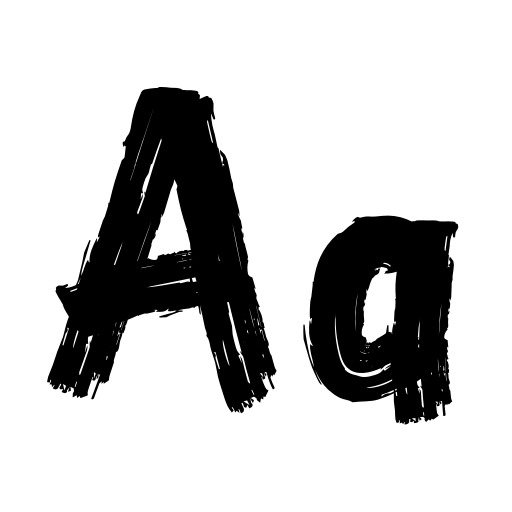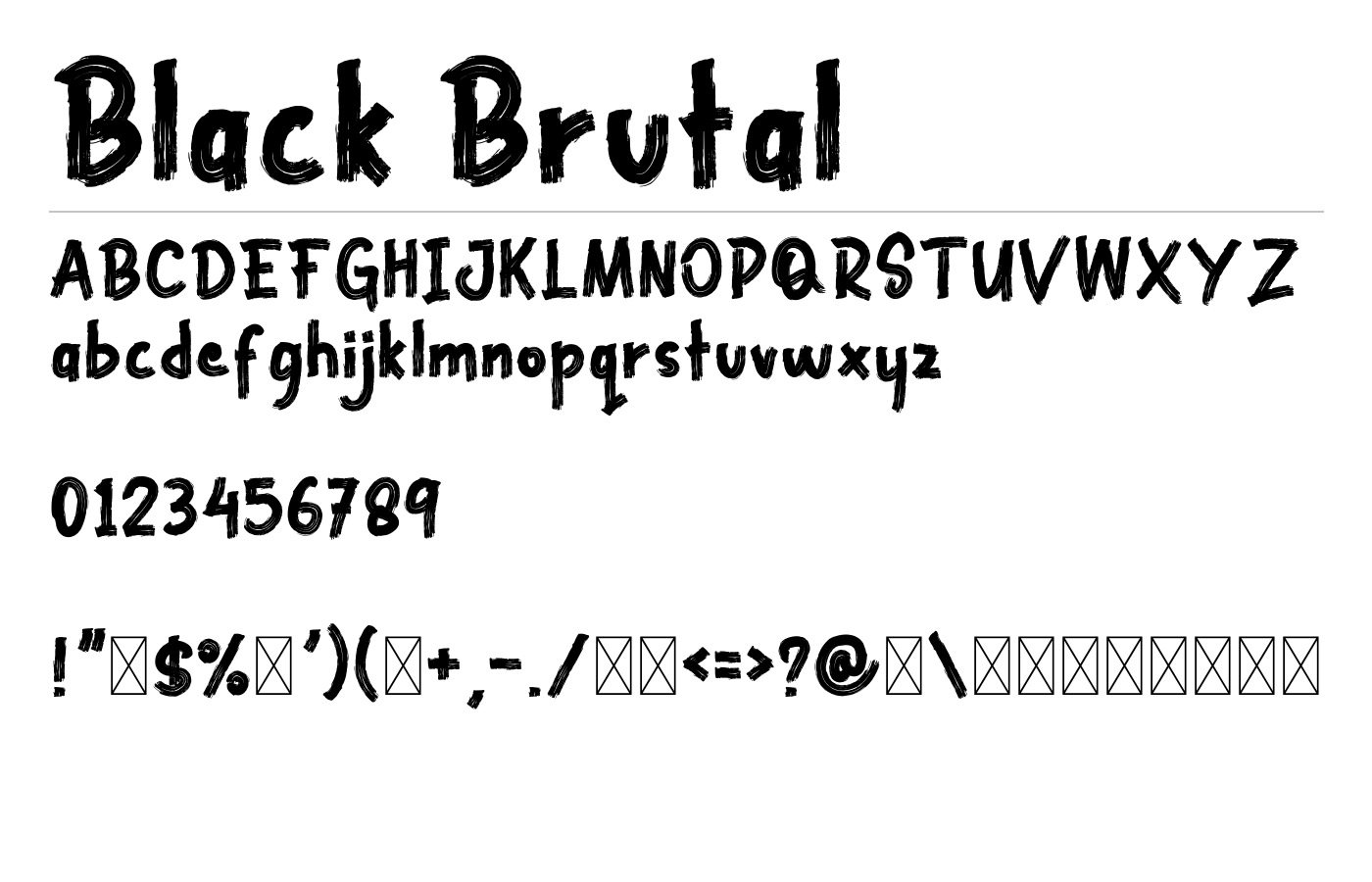
Black Brutal is a bold, hand-drawn sans serif font with a rough, textured appearance that gives it an edgy and expressive character. Its uneven strokes and playful irregularity make it ideal for creative projects wanting a raw, artistic vibe, perfect for posters, branding, and informal headlines where personality and impact are key. This font's distinctive style adds a handcrafted feel that stands out in modern and alternative design contexts.
Black Brutal Font
About Black Brutal Font
| Font family | Black Brutal Font |